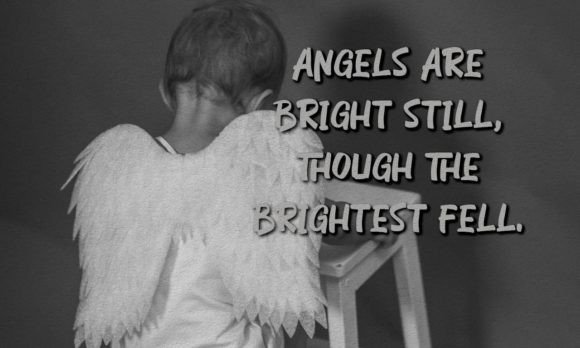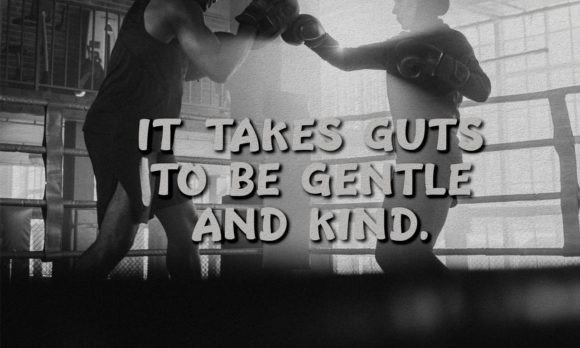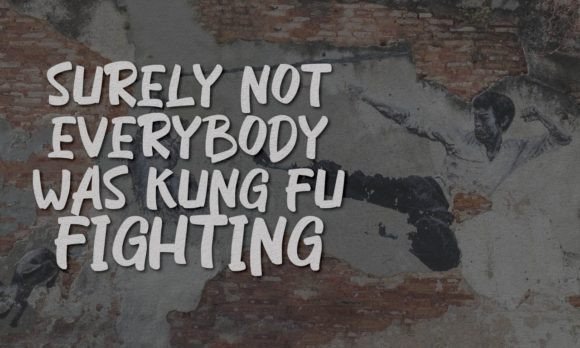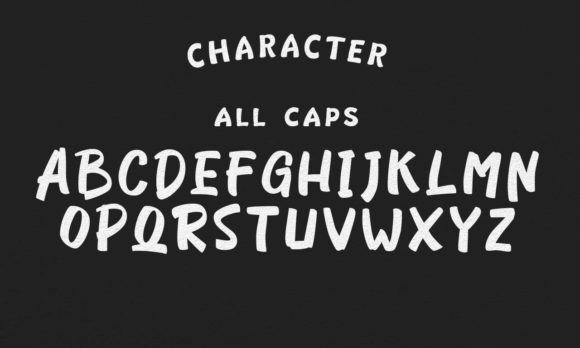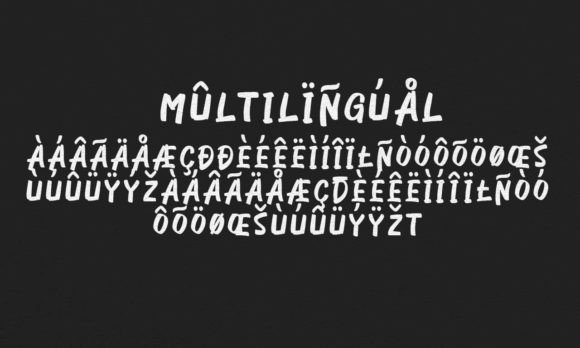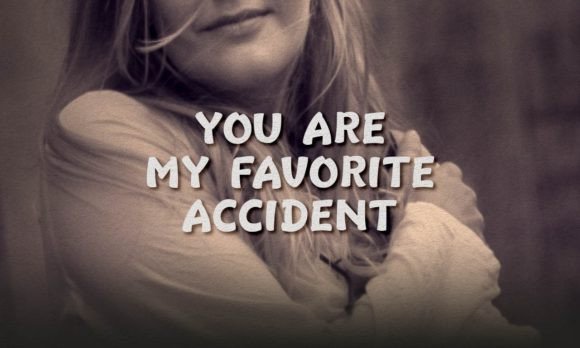
Introduction to Nastice Font
Have you ever stumbled upon a font that perfectly captures the essence of your creative project? For many designers, this is a moment of pure joy, and it can make all the difference in elevating their designs to new heights. That’s exactly what the Nastice Font offers – a clean, natural, and incredibly versatile hand-brush font that fits a wide range of designs.
Whether you’re working on a personal project or a client-based design, the Nastice Font is a valuable resource that can breathe new life into your work. Its high-quality design and transparent background make it perfect for a variety of creative applications, from branding and advertising to editorial and digital media. And the best part? You can download it for free, making it an accessible design resource for designers of all levels.
With the Nastice Font, the possibilities are endless, and we’re excited to dive into what makes this font so special and how you can incorporate it into your next creative project.
Key Features of Nastice Font
- High-quality design resource ideal for creative projects and presentations.
- Unique, elegant script font with a transparent background, perfect for adding a touch of sophistication to your design.
- Supports various languages, making it a versatile design resource for global creative projects.
- Easy to customize and edit, allowing designers to tailor the font to their specific creative project needs.
Honest Review: Nastice Font
I recently had the chance to try out the Nastice Font, and I must say it’s been a great addition to my design resources. One of the things I love about this font is its high quality and versatility. It’s perfect for a wide range of creative projects, from logos to digital displays.
- ✨ High-quality design: The Nastice Font has a clean, modern aesthetic that makes it perfect for professional designs.
- ✨ Transparent background: This font also comes with a transparent background, which makes it easy to use on any design or project.
However, there are a few limitations to keep in mind. The font is only available in a few weights, which may not be suitable for every project. Additionally, the font may not be as bold or eye-catching as some other fonts on the market.
- ⚠️ Limited weights: The Nastice Font only comes in a few weights, which may limit its use in certain creative projects.
- ⚠️ Not as bold: While the font is high-quality, it may not be as bold or eye-catching as some other fonts.
Overall, I’m really impressed with the Nastice Font. It’s a great design resource for anyone looking for a high-quality, free font. With its clean aesthetic and transparent background, it’s perfect for a wide range of creative projects.
To use Nastice Font in PowerPoint or Word, click on the “Home” tab and select the font from the font library. You can adjust the font size, color, and style to suit your presentation or document. With Nastice Font, you can create professional-looking presentations and documents for your business or personal use.
Tips for Getting the Most Out of Nastice Font
Use Nastice Font with a transparent background to create a clean and modern design. Experiment with different font sizes and colors to find the perfect combination for your creative project. You can also use Nastice Font in conjunction with other design resources, such as graphics and images, to create a visually appealing design.
Nastice Font is perfect for creating designs for social media, business cards, flyers, and brochures. It’s also great for personal projects, such as creating a resume or a portfolio. With Nastice Font, you can create high-quality designs that are sure to impress.
Is Nastice Font suitable for use on a website with a transparent background?
Yes, Nastice Font is designed to be used on websites with transparent backgrounds. Its transparent background ensures that the text blends seamlessly with your design, creating a clean and professional look. However, please note that you may need to adjust the font size and line height to ensure optimal readability.